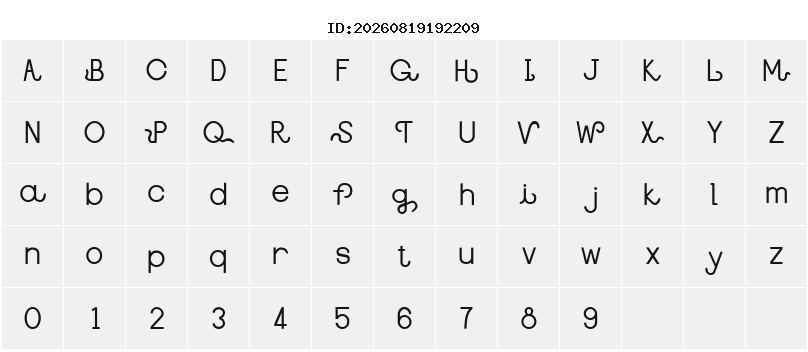
• Font Name: Shippo
• Full Font Name: Shippo
About Shippo.ttf
Shippo.ttf is a modern, elegant sans-serif font designed for ultimate readability and visual harmony. Perfect for branding, headlines, web design, and print materials.